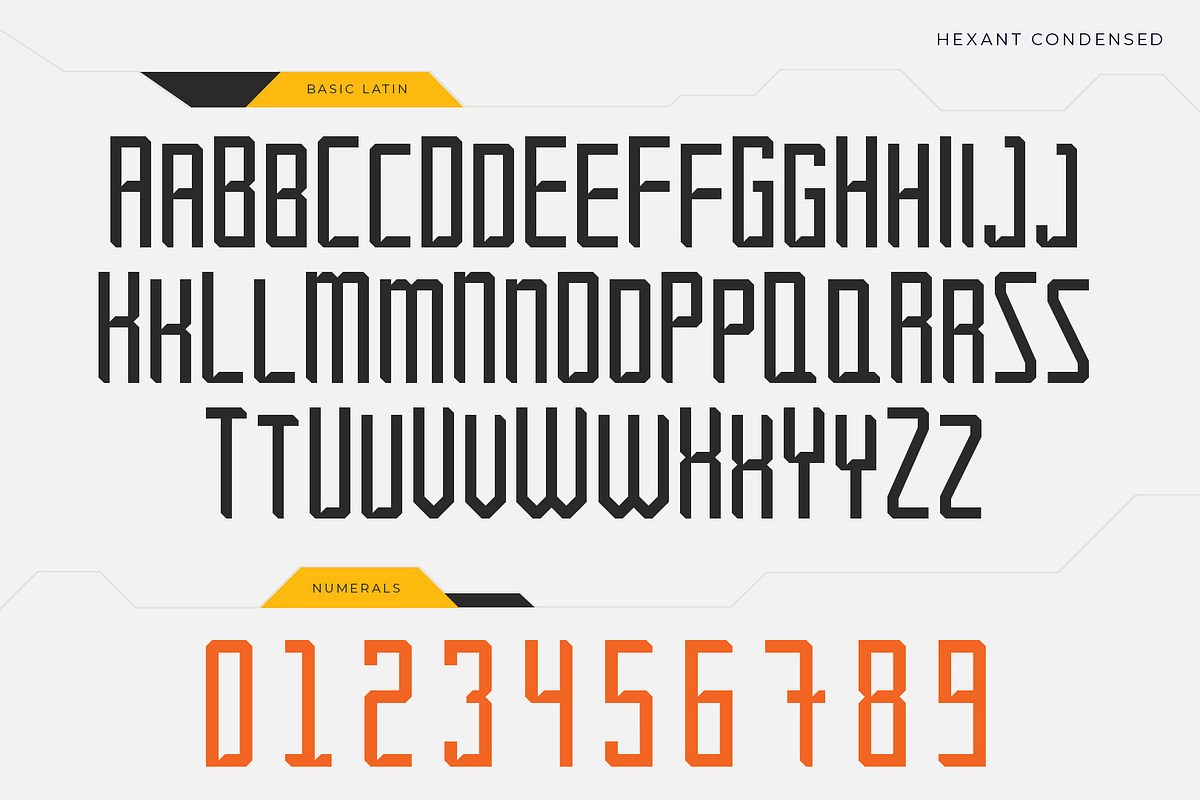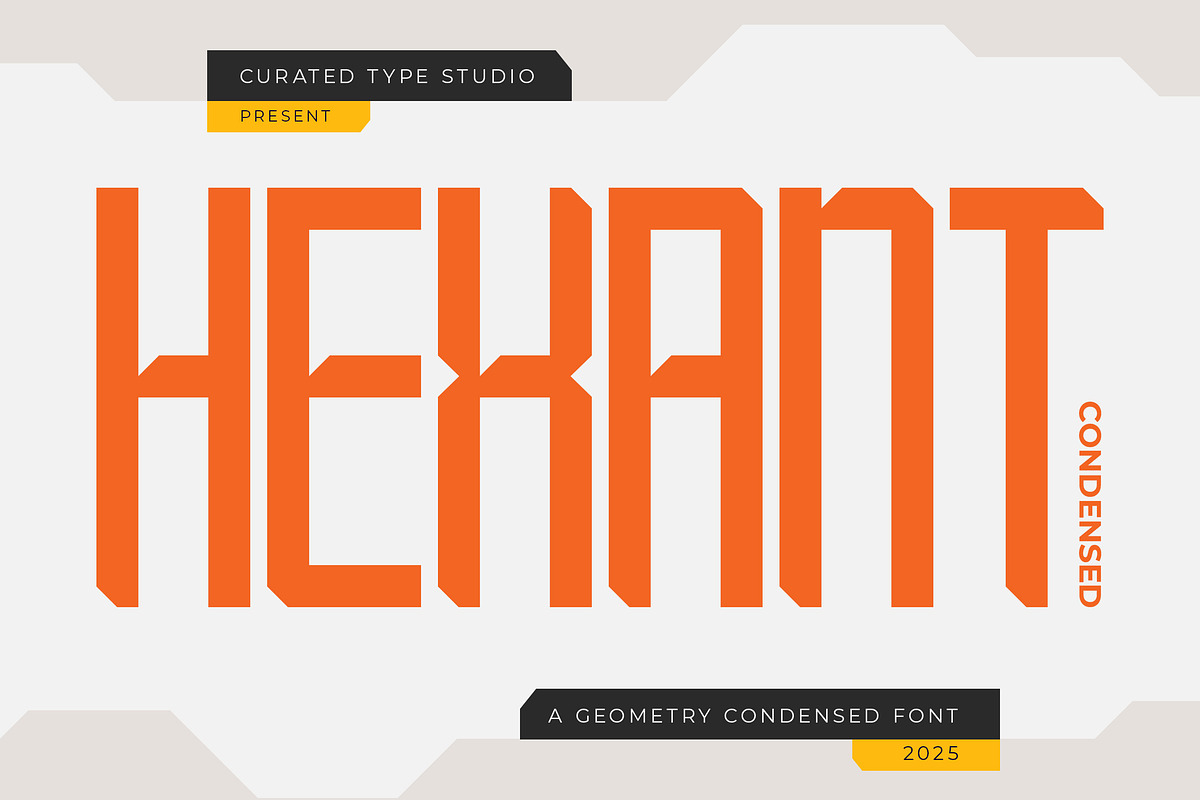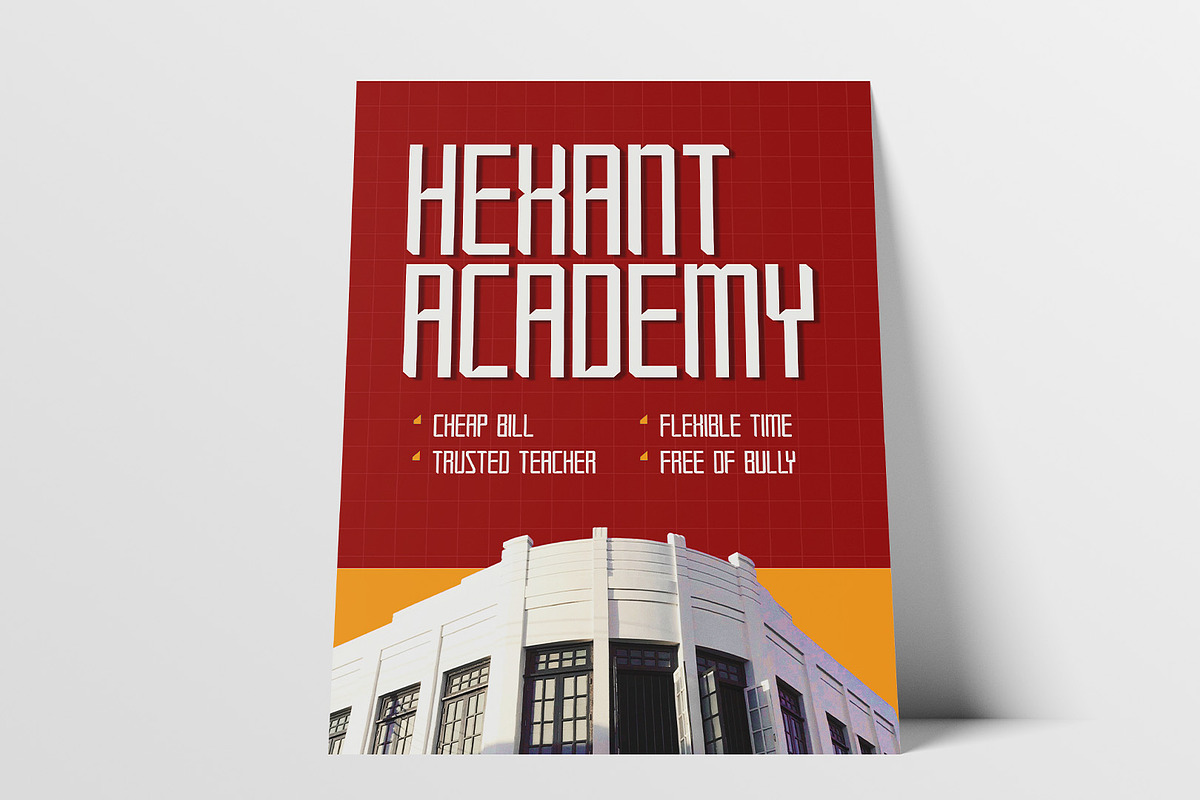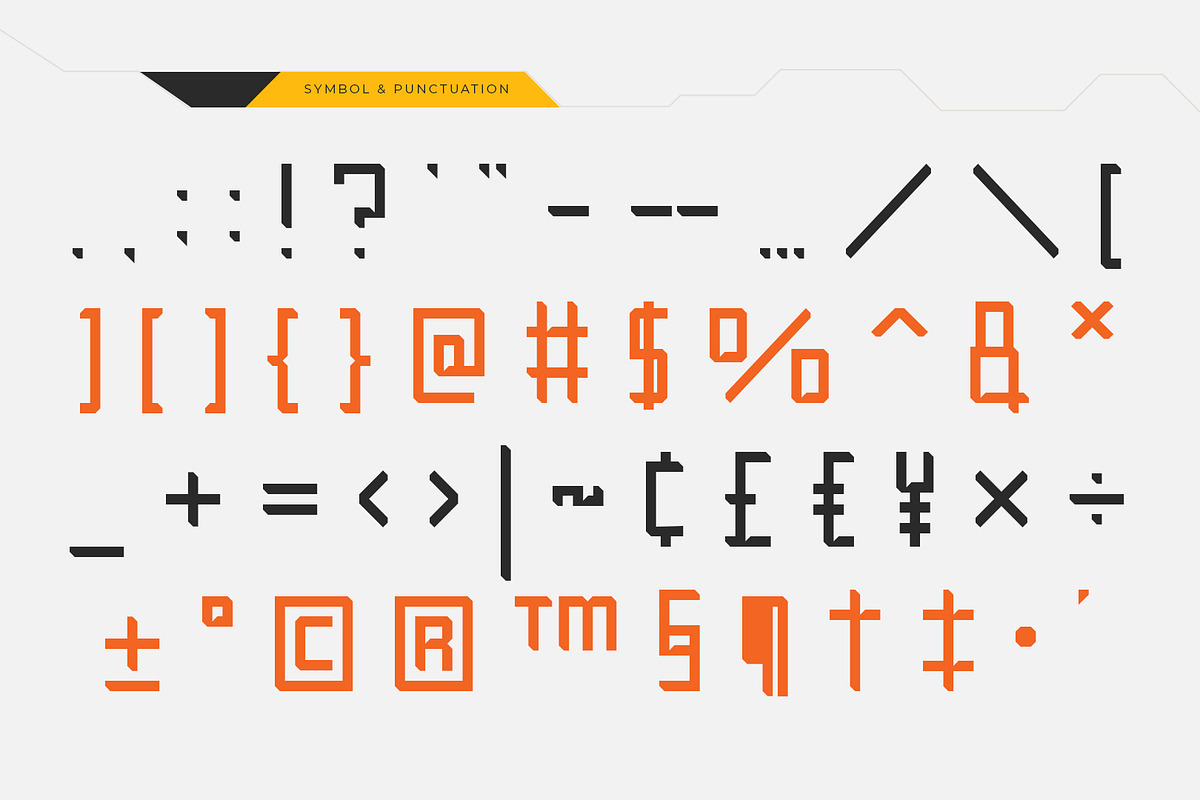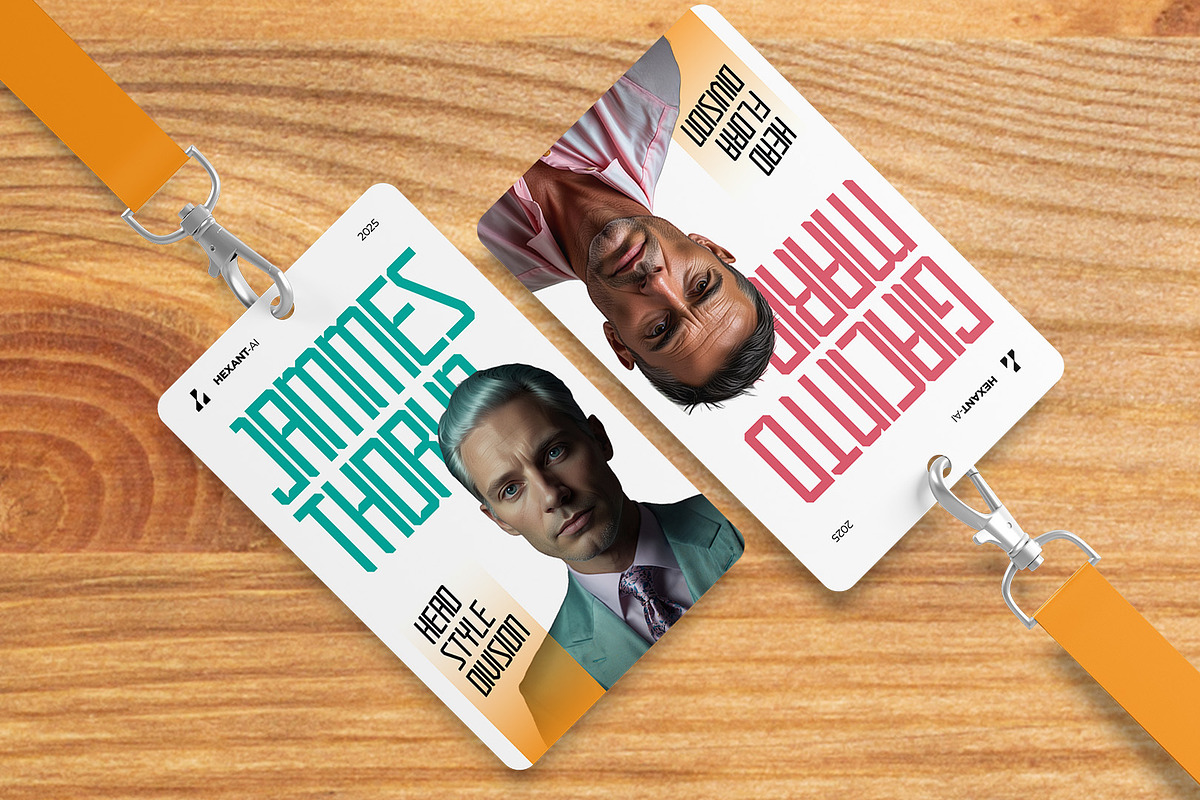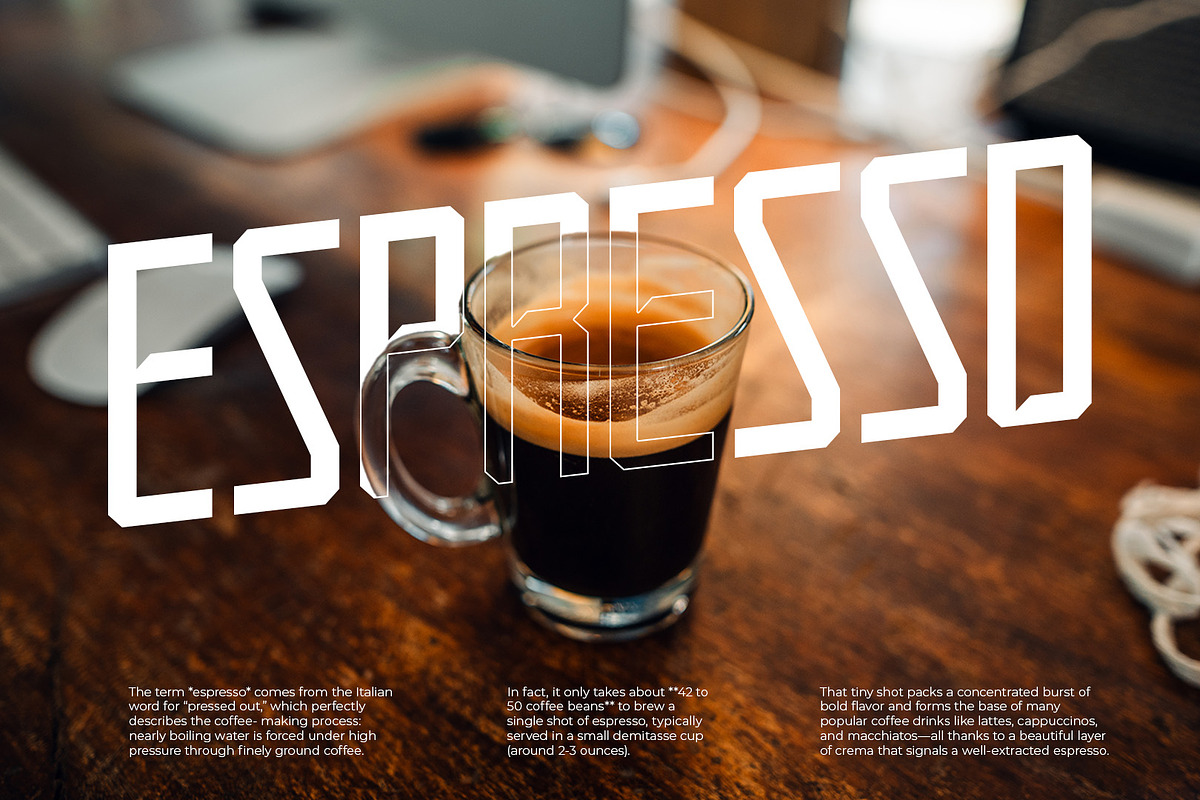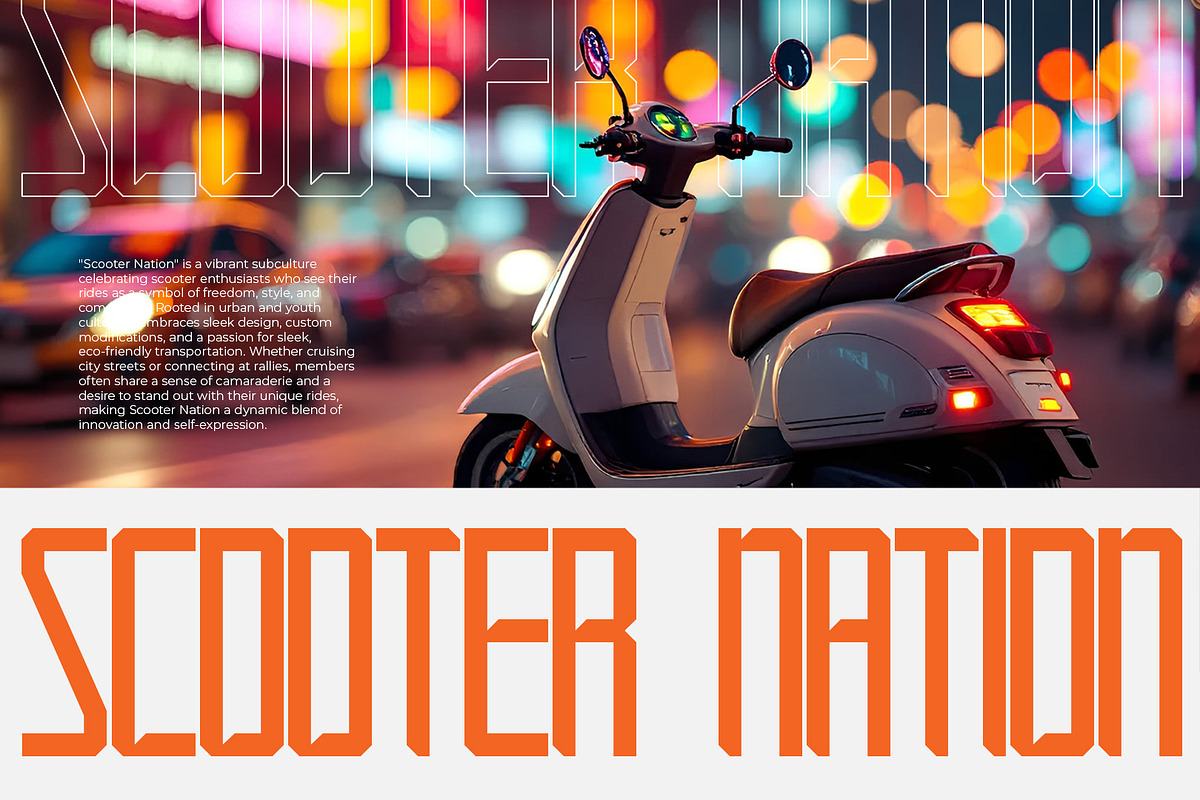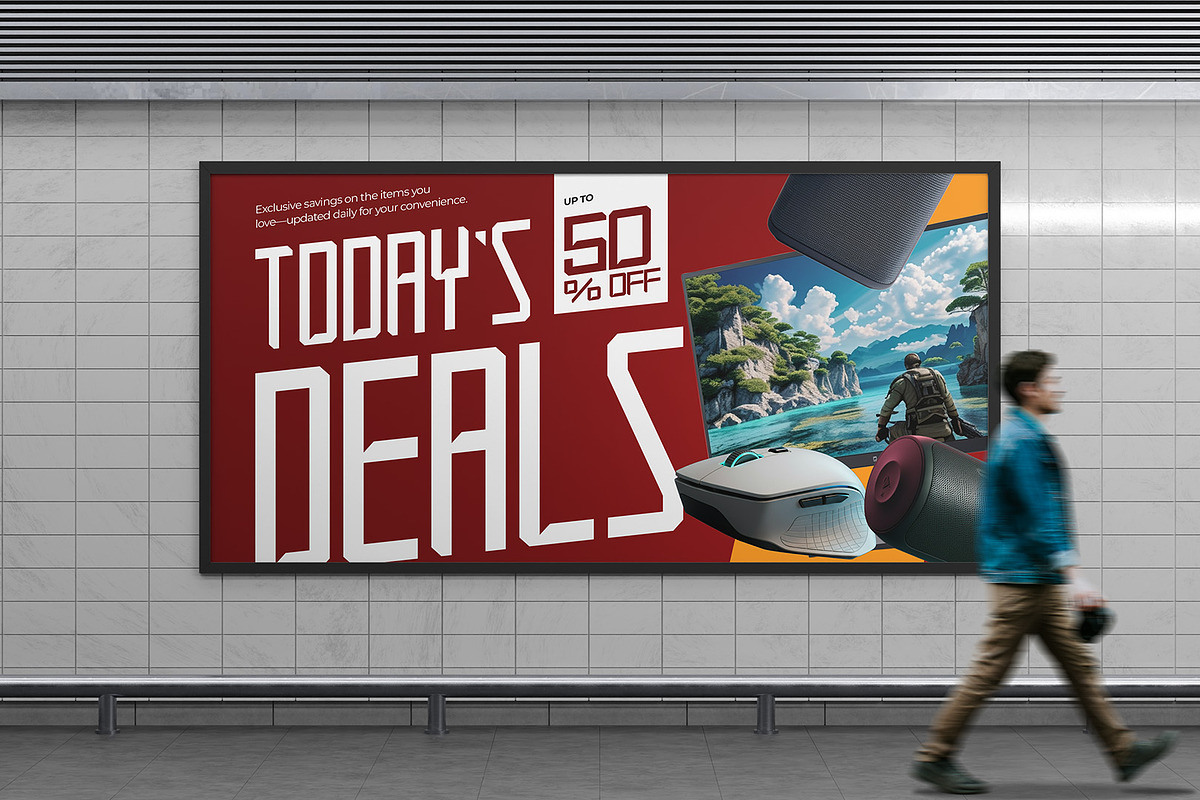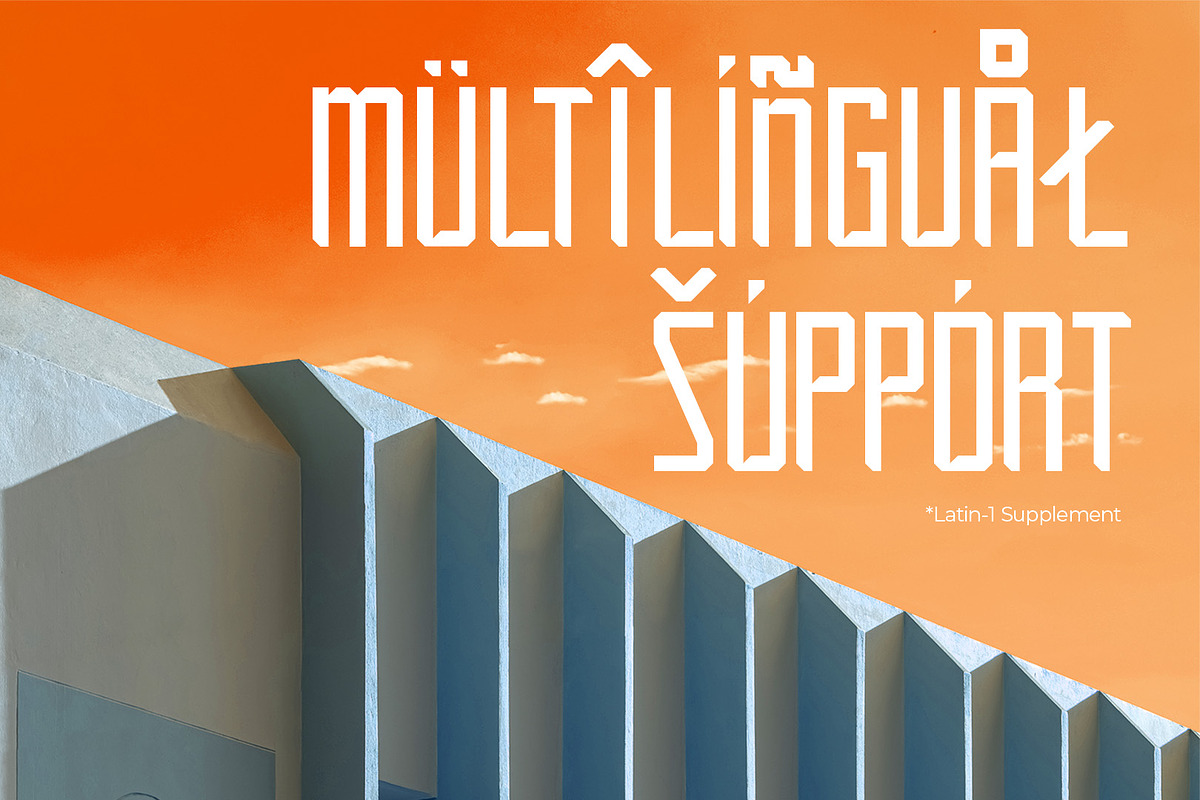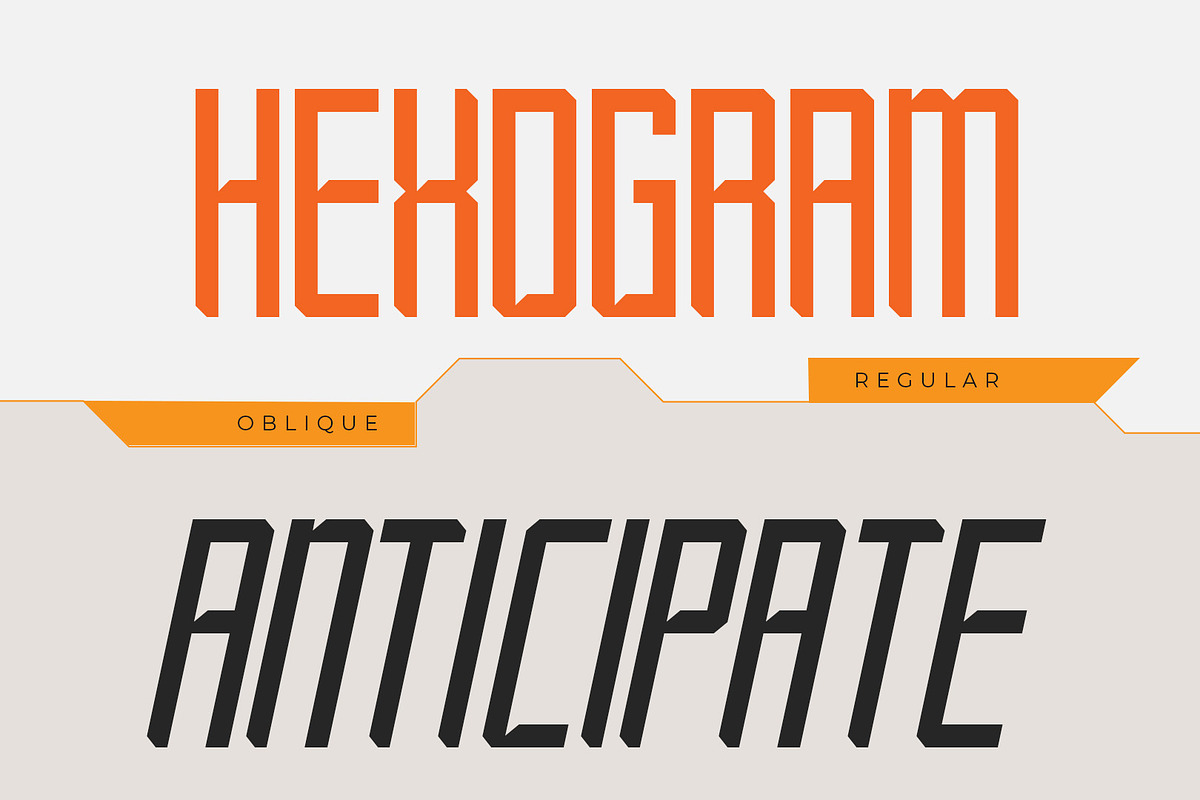
Hexant Condensed - Geometry Condense
Hexant Condensed is a bold, futuristic typeface that redefines modern typography with its aggressive yet balanced geometry. Meticulously crafted with sharp, angular strokes, each character commands attention, making the font a natural focal point for headlines and high-impact design. Its condensed structure ensures every letter remains compact yet highly legible, perfect for applications that demand clarity without sacrificing style. The striking interplay between form and space gives Hexant Condensed a distinctive, technology-inspired aesthetic that resonates with contemporary design trends.
This versatile typeface excels in transforming everyday messages into impactful visual statements. Whether employed for digital interfaces, travel campaign banners, or corporate branding, its uniformity and dynamic edge elevate the overall design. An intelligently designed numeral set—often showcased in contrasting hues—adds an extra layer of sophistication, enhancing its modern appeal. Hexant Condensed seamlessly bridges the gap between futuristic innovation and practical functionality, inviting designers to explore creative expressions that leave a lasting impression.
- 2 Styles Font : Regular and Oblique
- Standard letter A-Z and a-z
- Numeral, Symbol, and Punctuations
- Alternate and Ligature